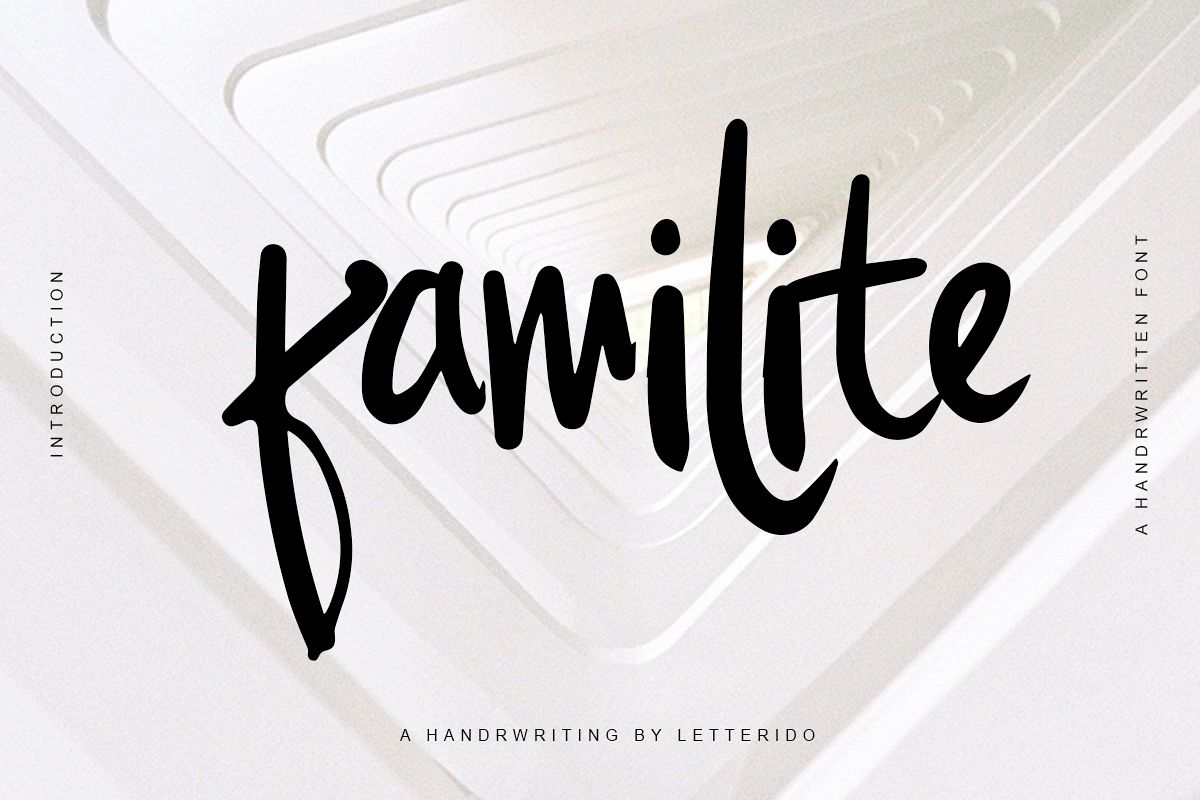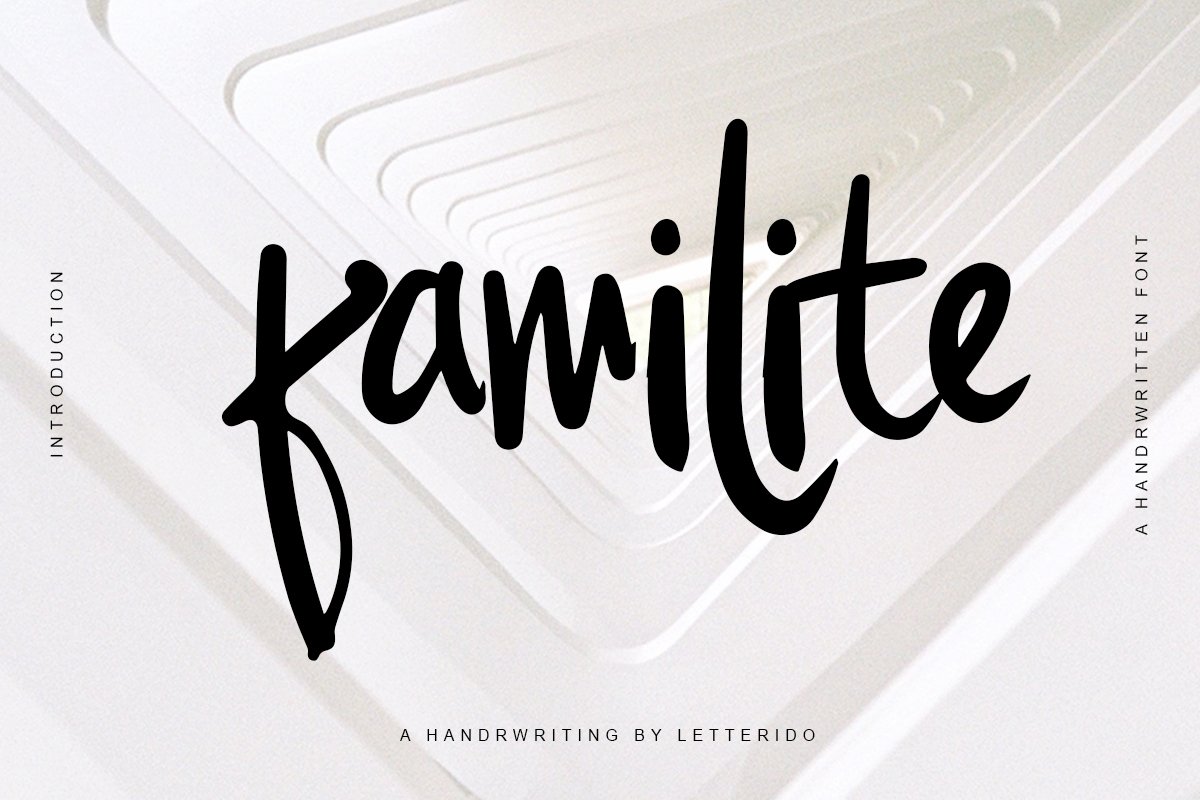
Familite
Familite is a fresh handdrawn sans serif font. Familite is a perfect use for a poster design, product packaging, quotes, t-shirt design, invitation, special events, branding and anything that need handwriting taste.
- Ton of glyphs (include Uppercase, Lowercase, Numerals & Punctuations)